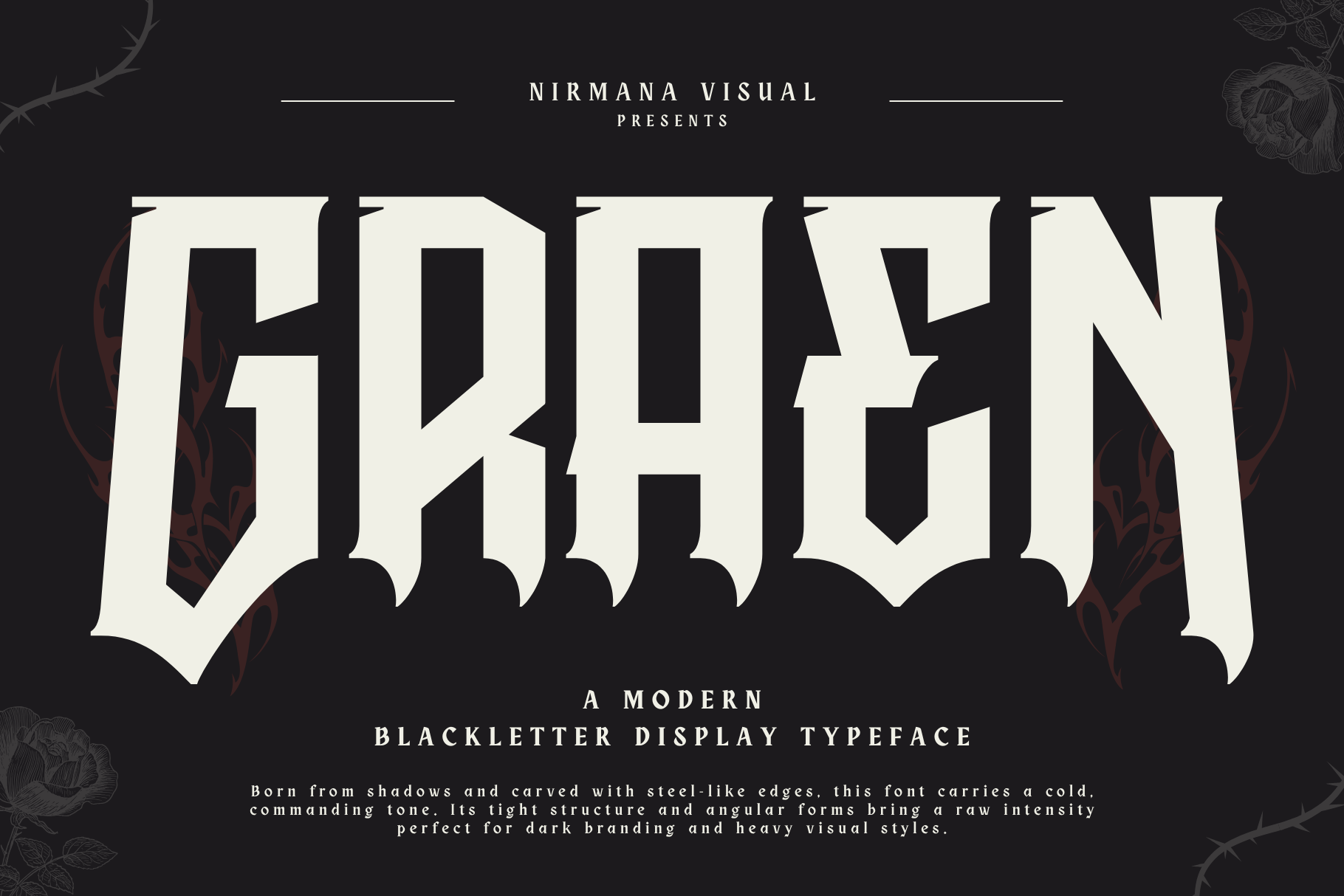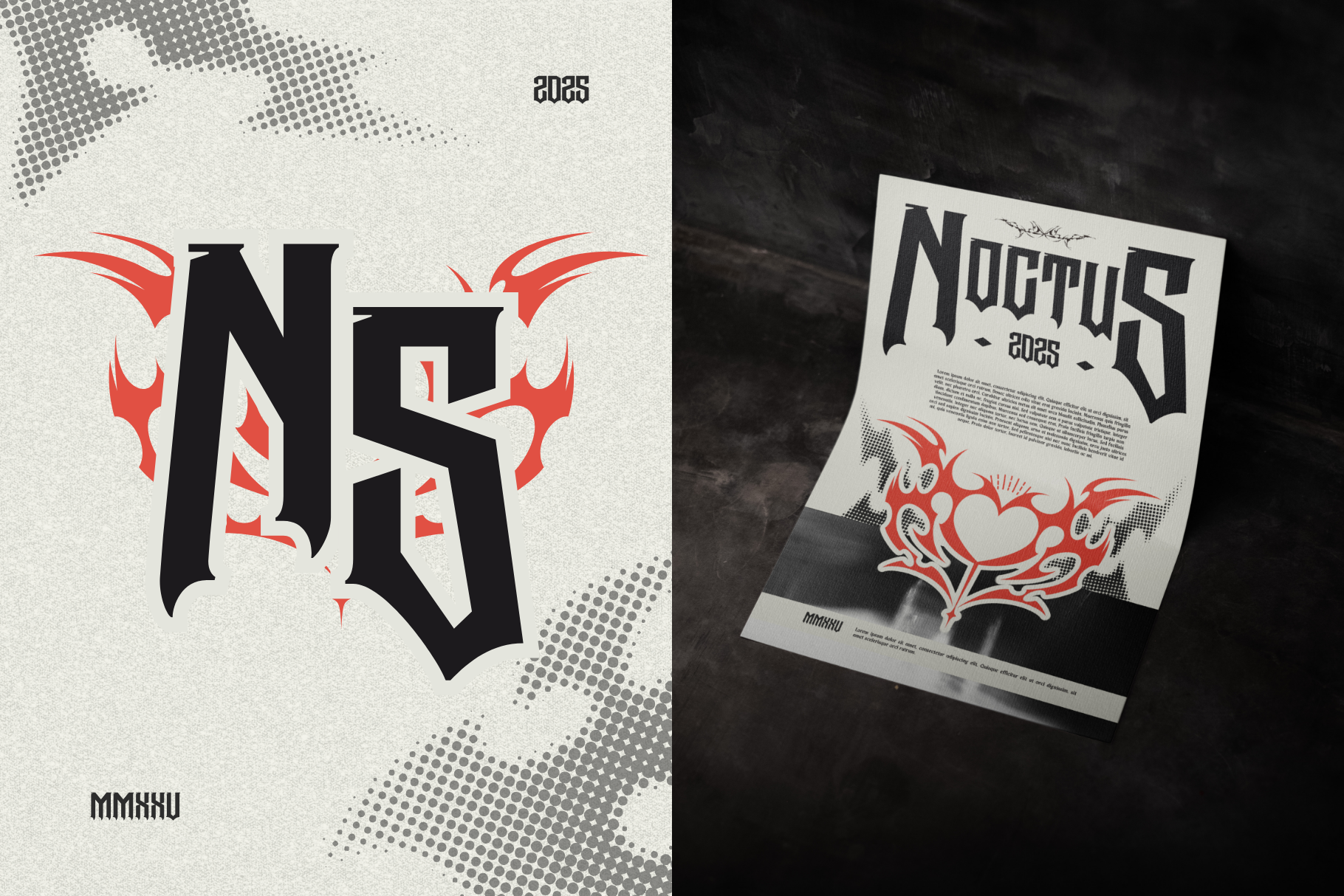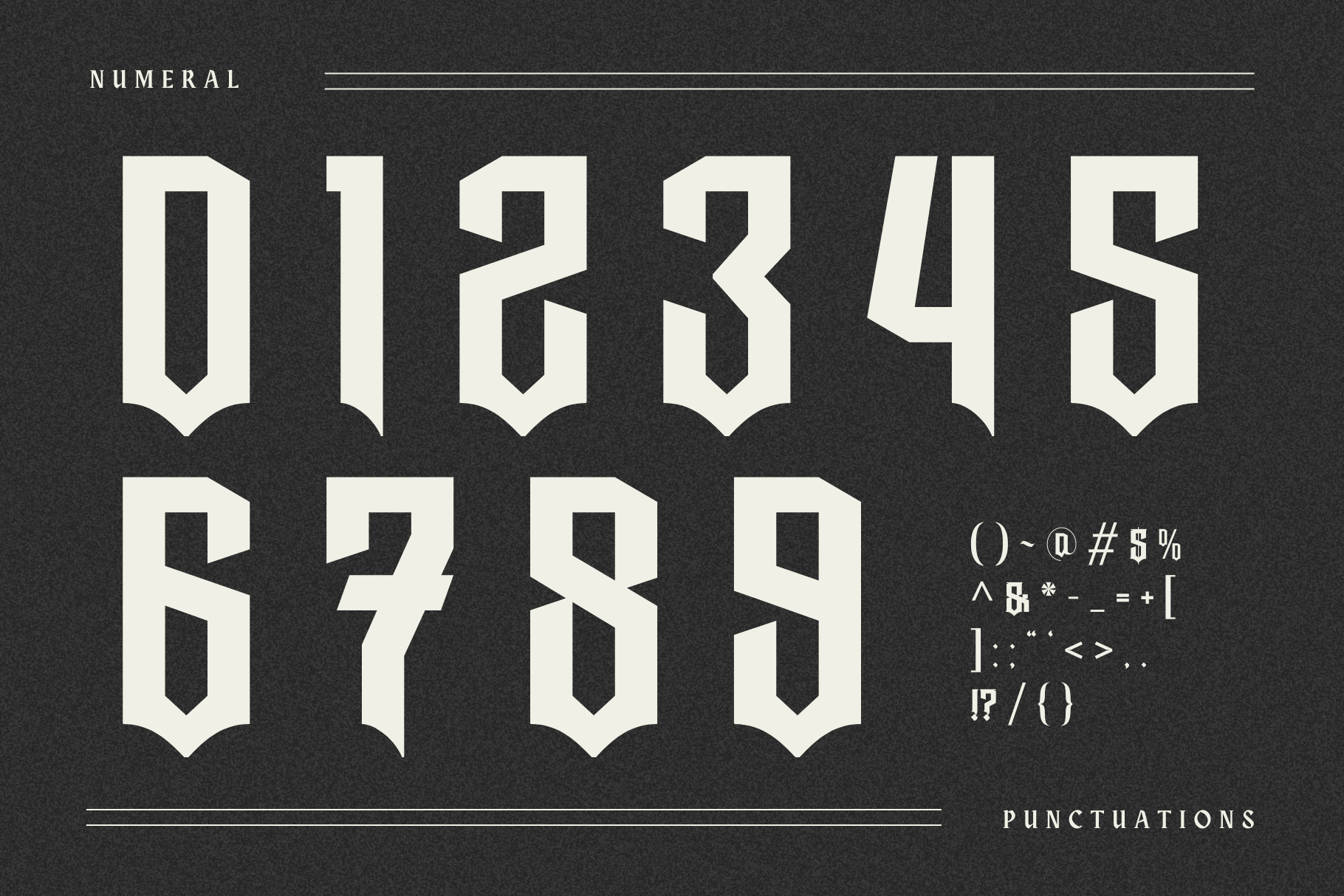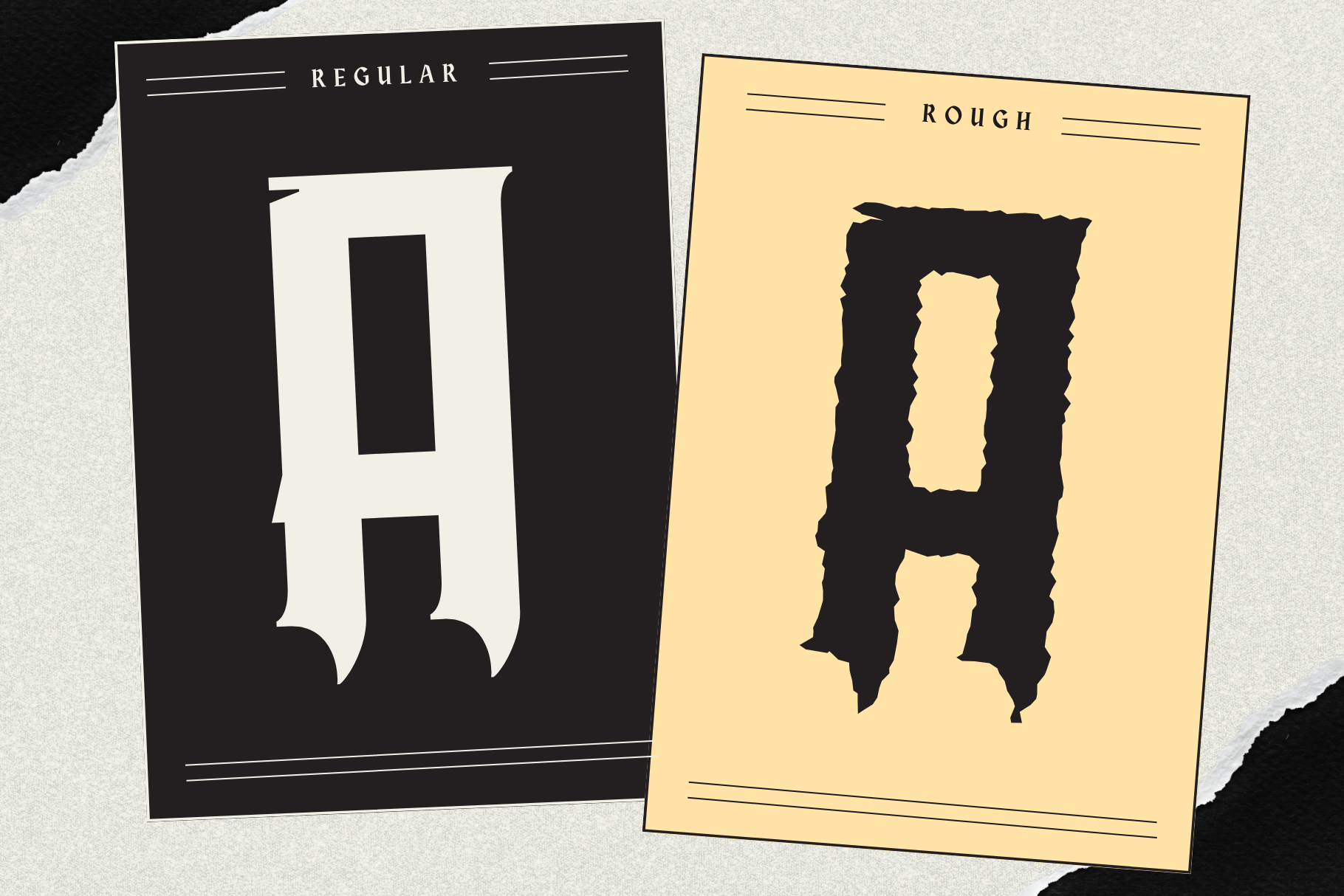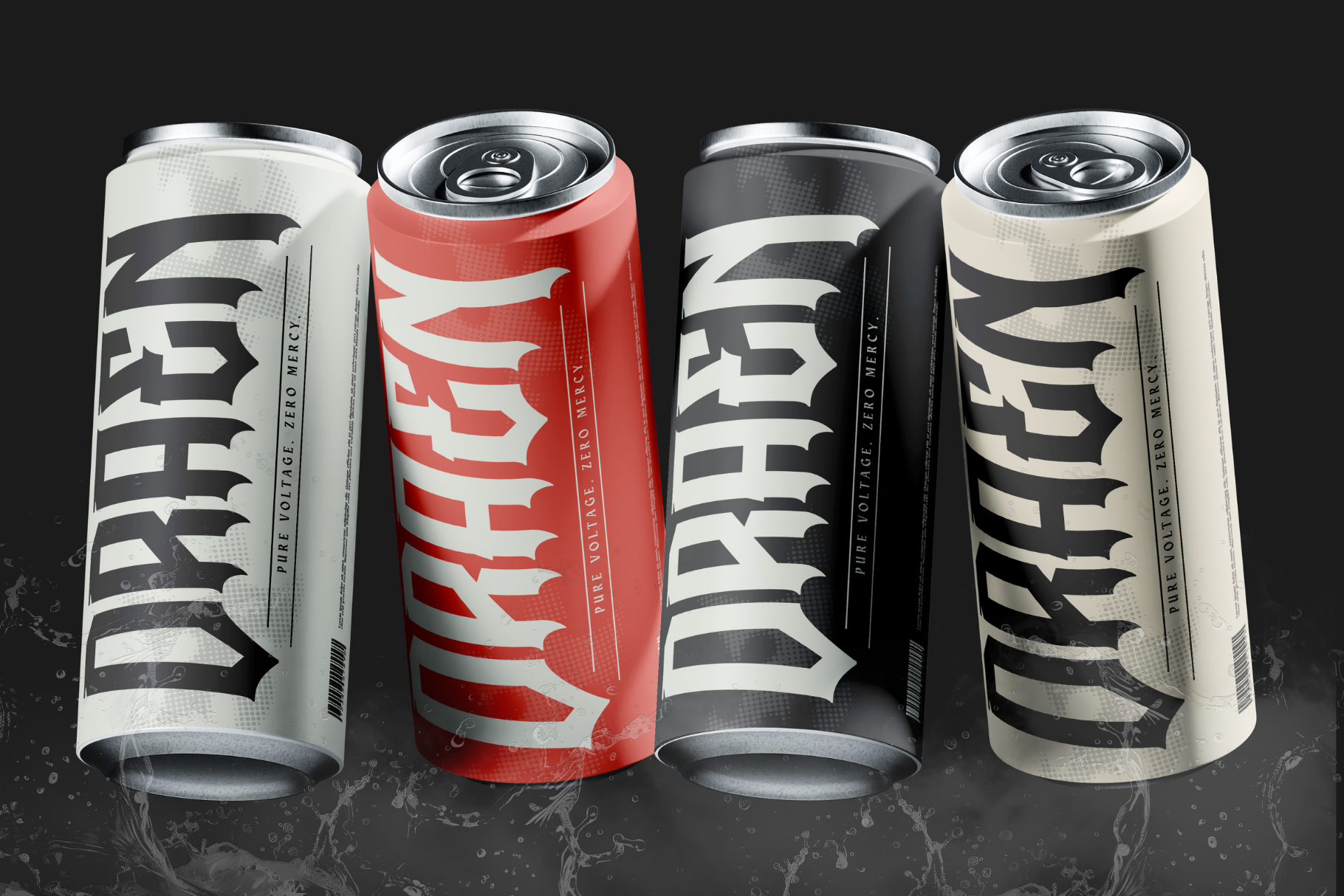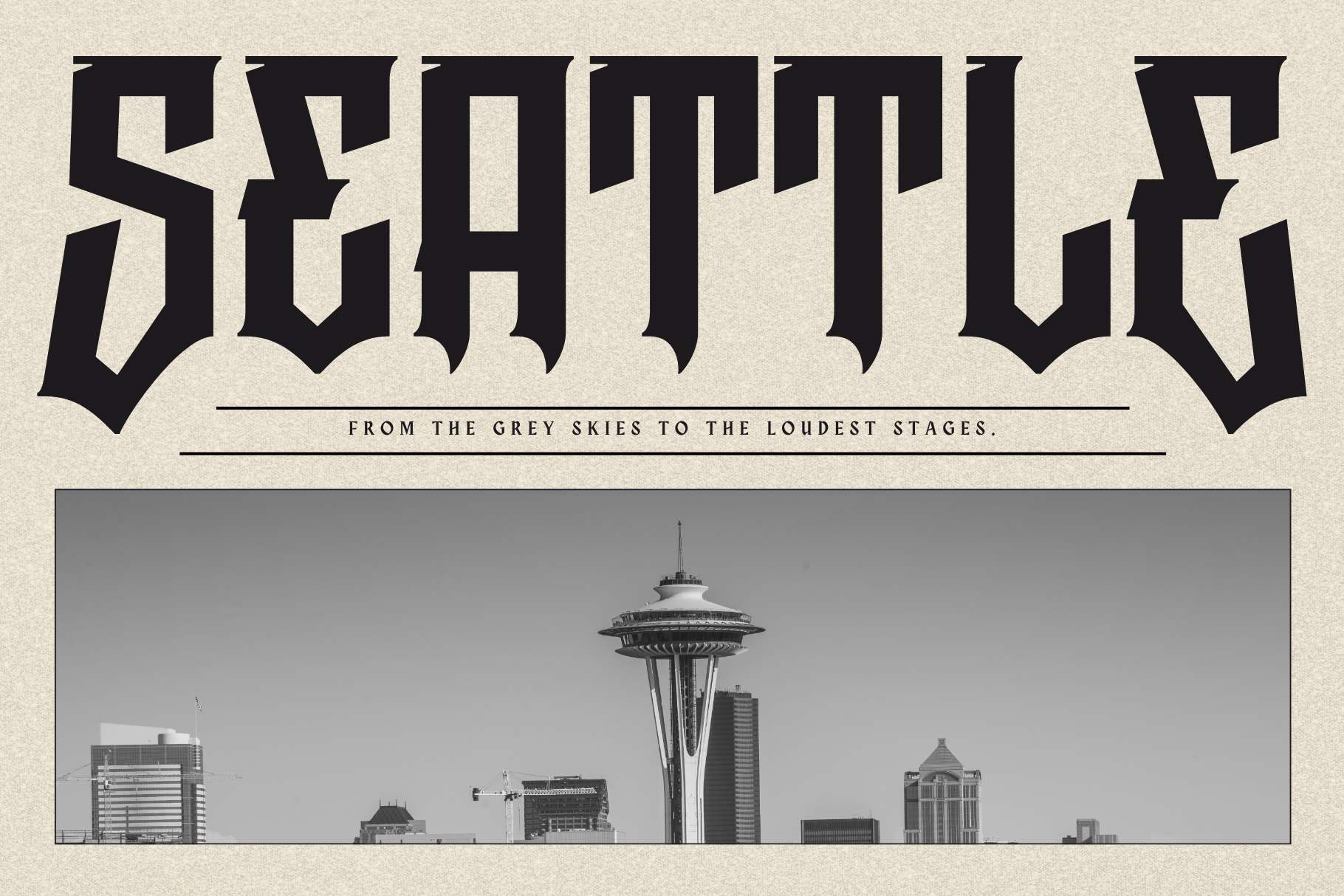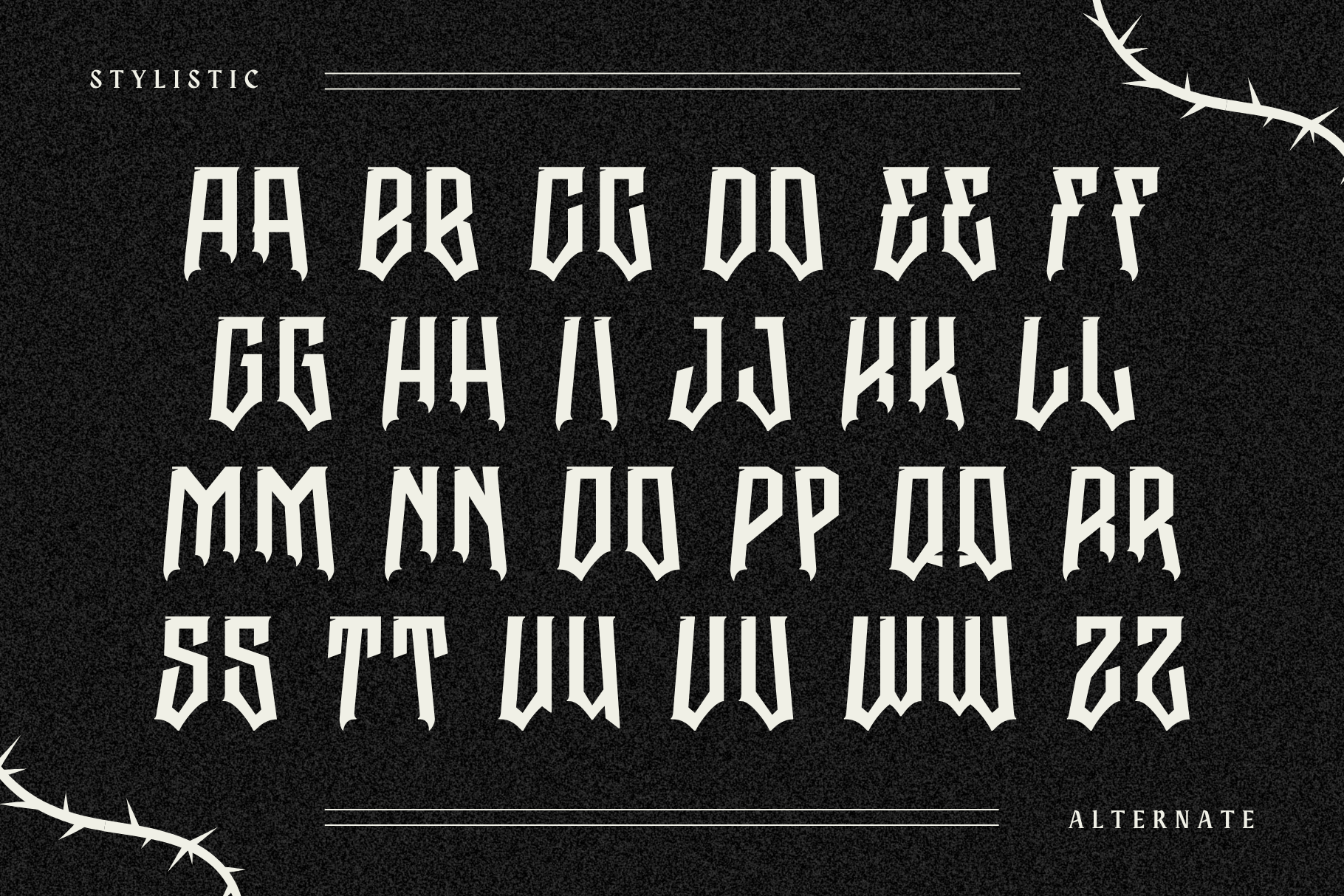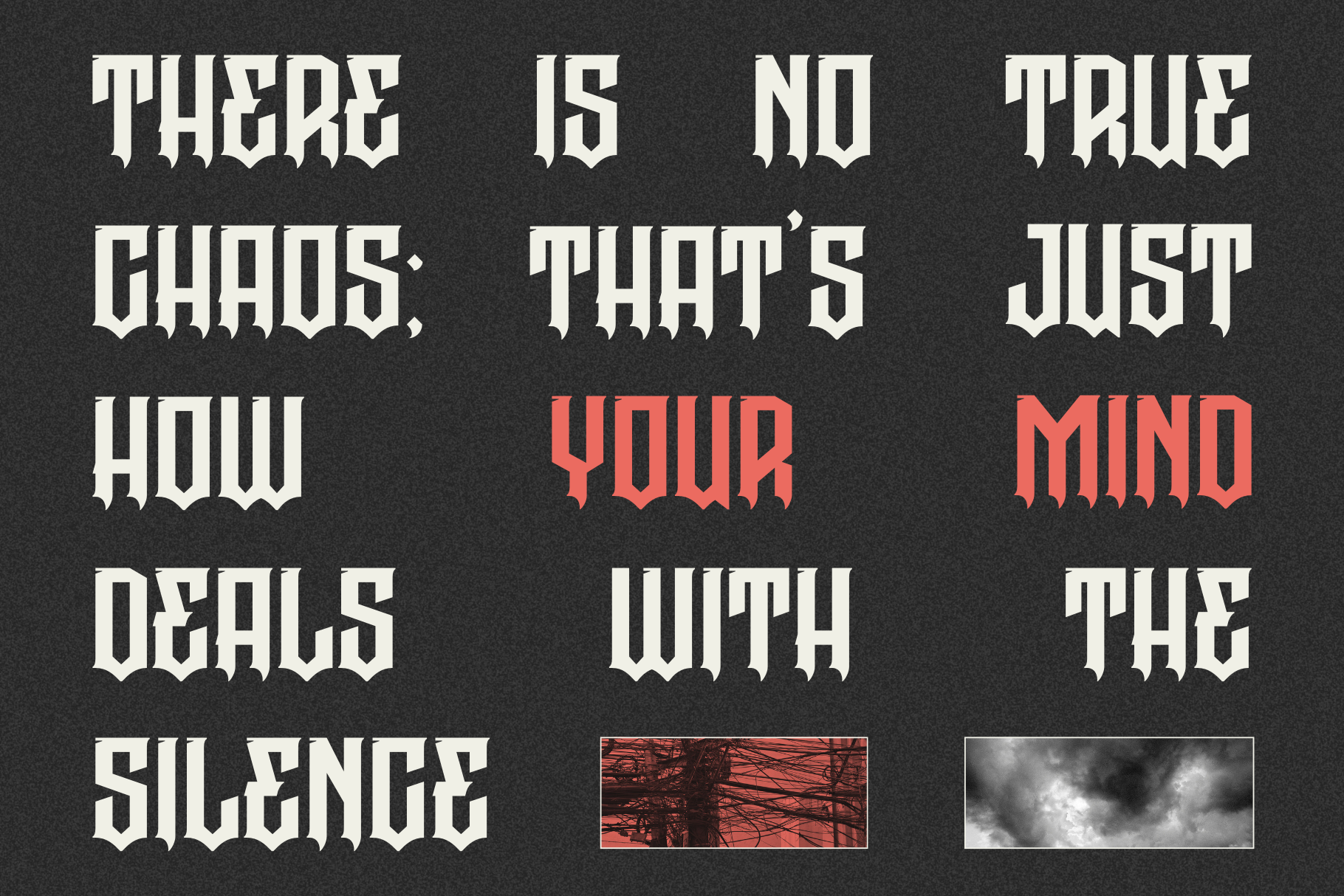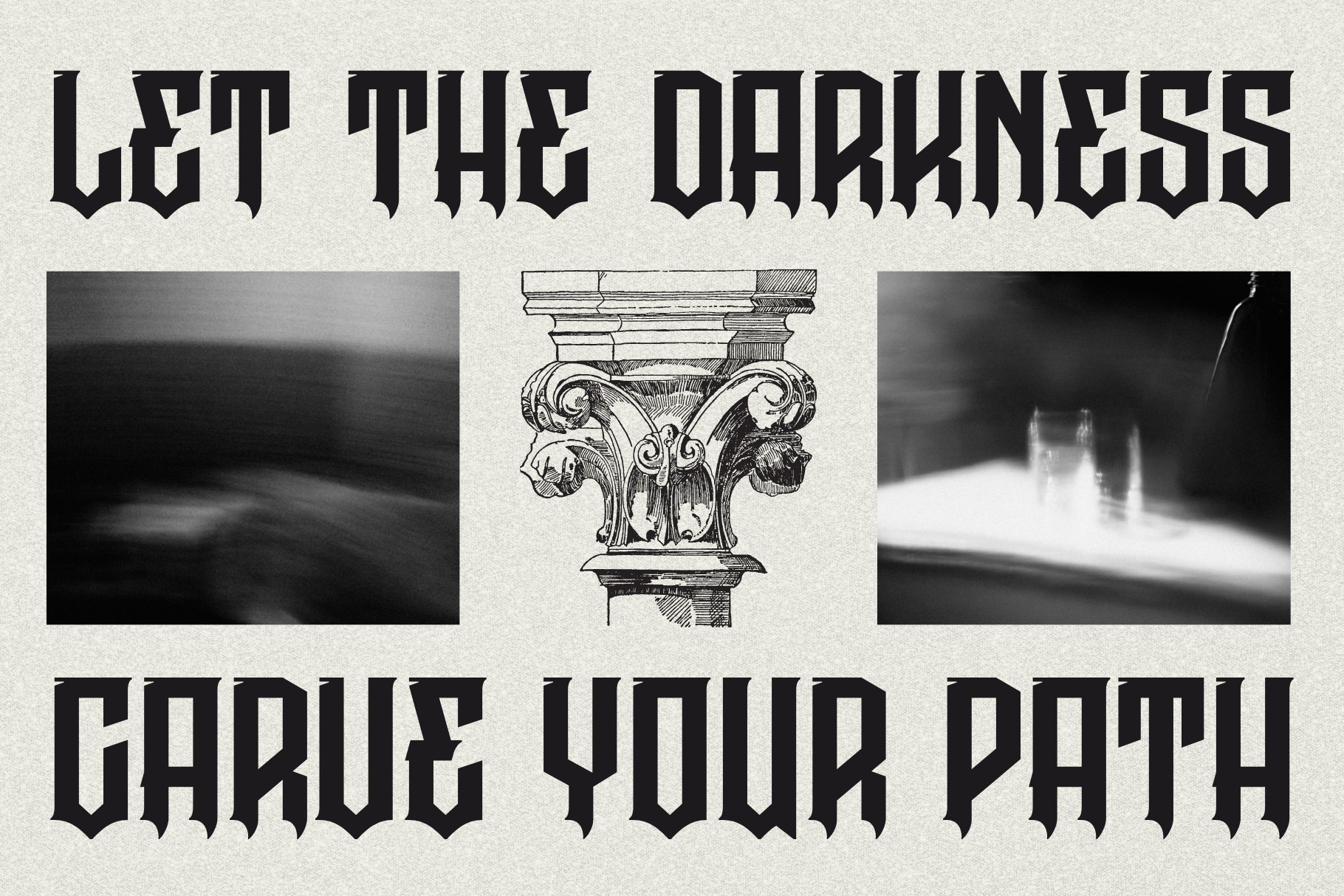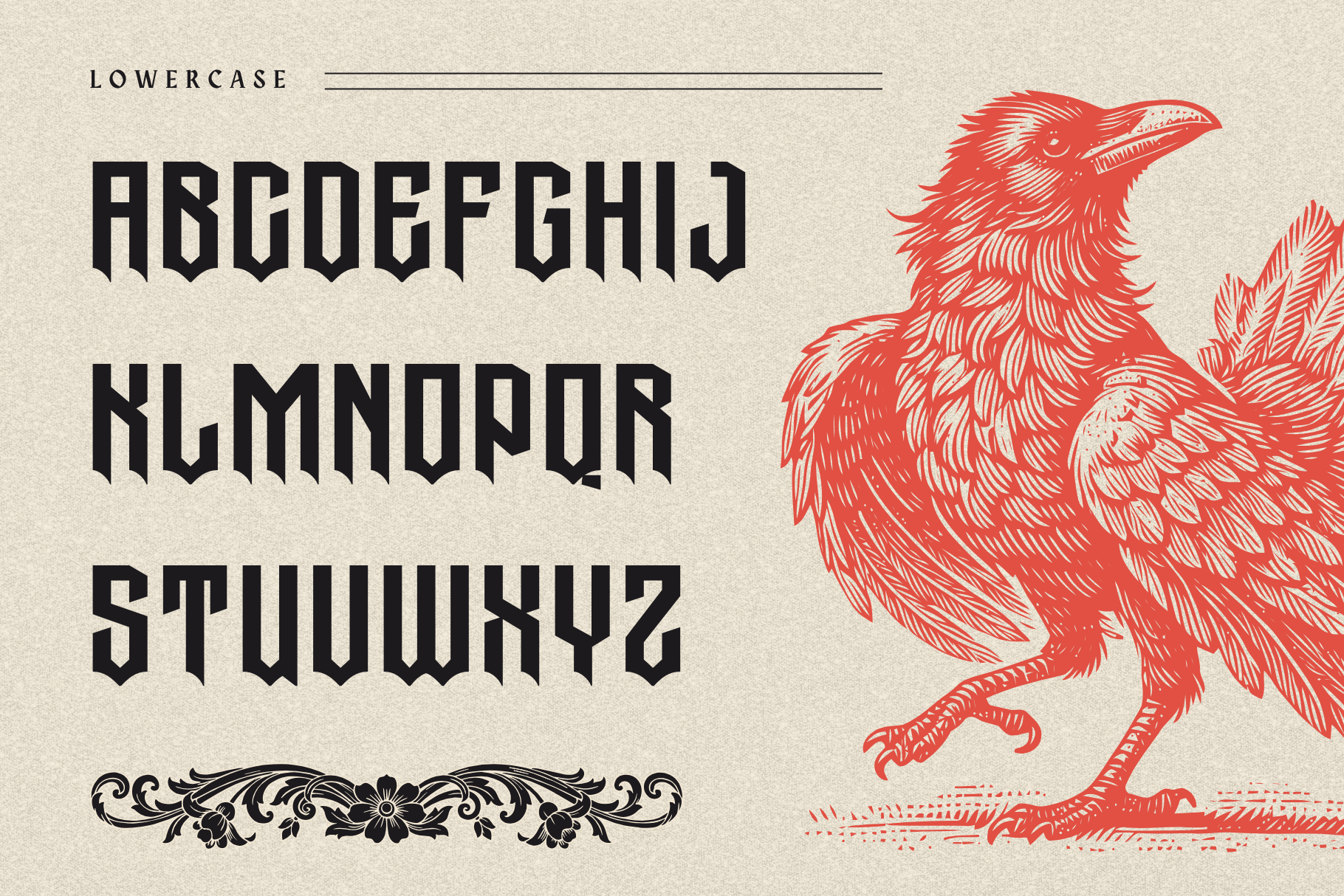
Graen Metal offers beautiful typographic harmony for a diversity of design projects, including logos & branding, social media posts, advertisements & product designs.
What you get : Regular + Rough